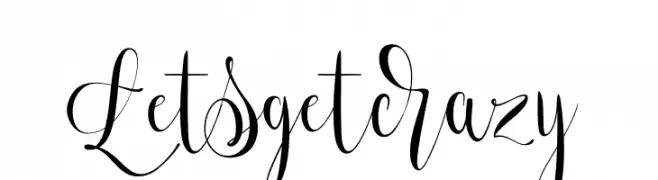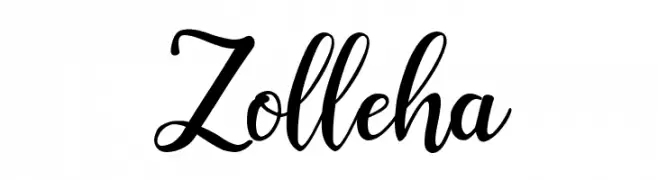
A decorative cursive font with elegant loops and swashes, perfect for romantic designs.
A graceful script font with flowing cursive letters and intricate swashes.
A flowing, cursive font with elegant loops and swashes, offering a handwritten appearance.
An elegant, italic script font with flowing, interconnected letters and ornate swashes.
A flowing, cursive font with elegant loops and swashes.
An elegant script font with flowing lines and decorative swashes.
A decorative script font with flowing, interconnected letterforms and intricate swashes.
A decorative script font with elegant swashes and high contrast strokes.
A luxurious, flowing cursive font with intricate loops and swashes.
A flowing, cursive script font with elegant loops and swashes.